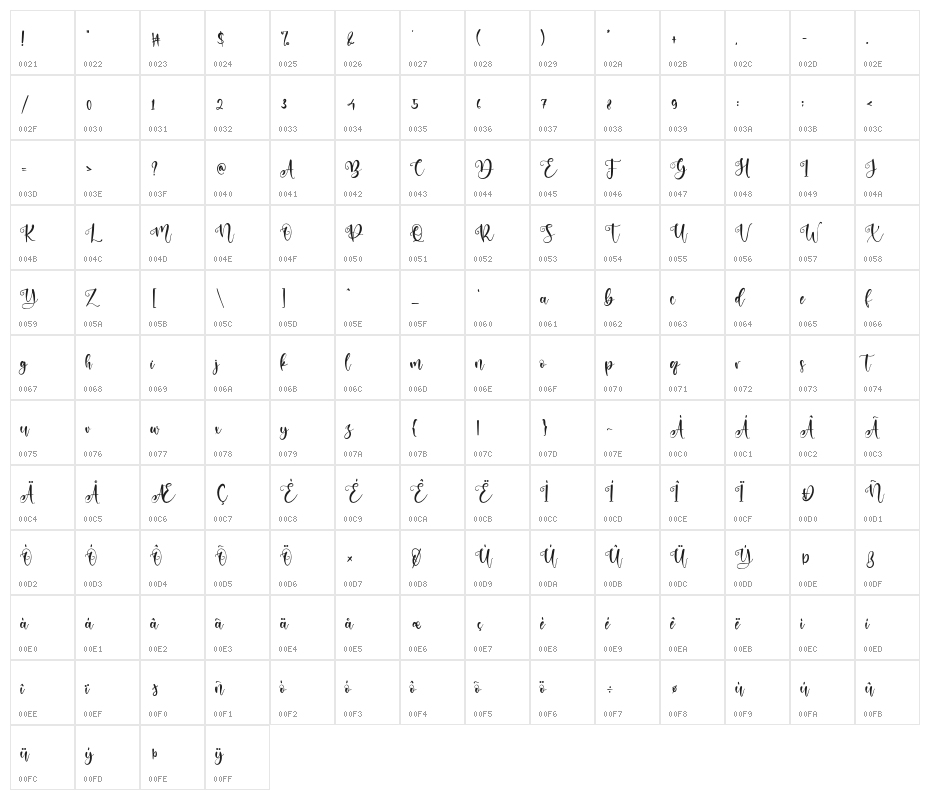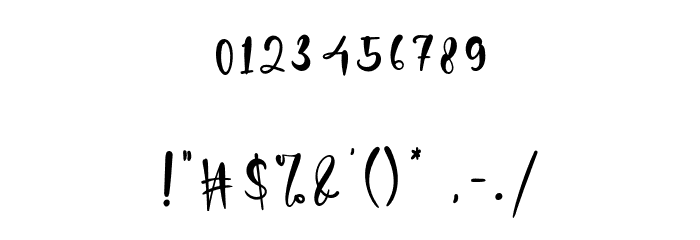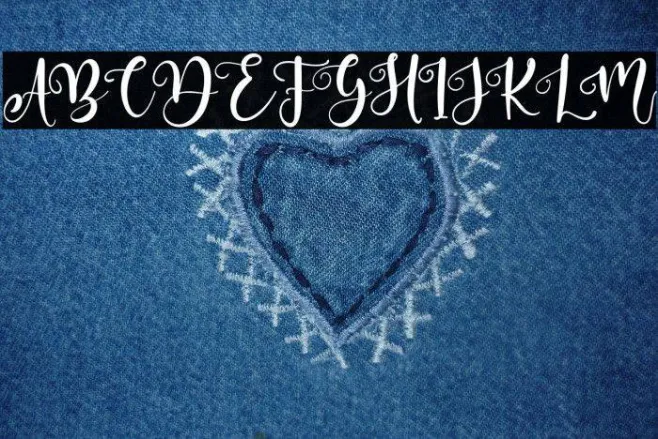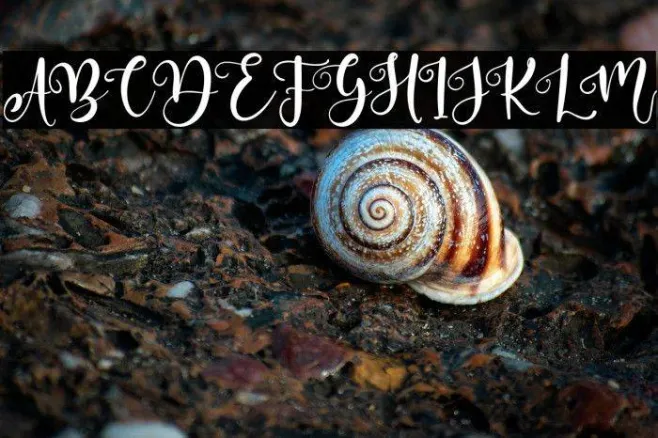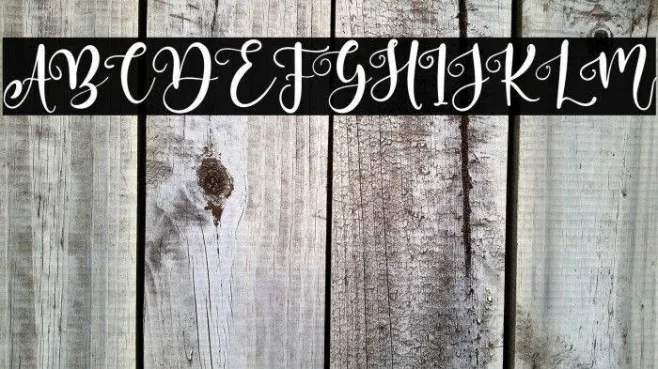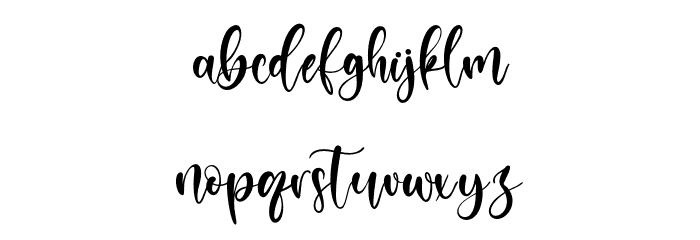
Absollute Font
Absollute Description
This font features an elegant and flowing script style, characterized by its ornate and decorative letterforms. The uppercase letters are particularly elaborate, with intricate swirls and loops that give a sense of sophistication and flair. The lowercase letters maintain a consistent style, with smooth curves and a slightly playful touch. The numbers are designed to match the overall aesthetic, offering a cohesive look. Special characters are included, each crafted with the same attention to detail, making this font versatile for various design needs.
| Proposed Projects | Ideal for wedding invitations, greeting cards, branding projects, and elegant packaging designs. |